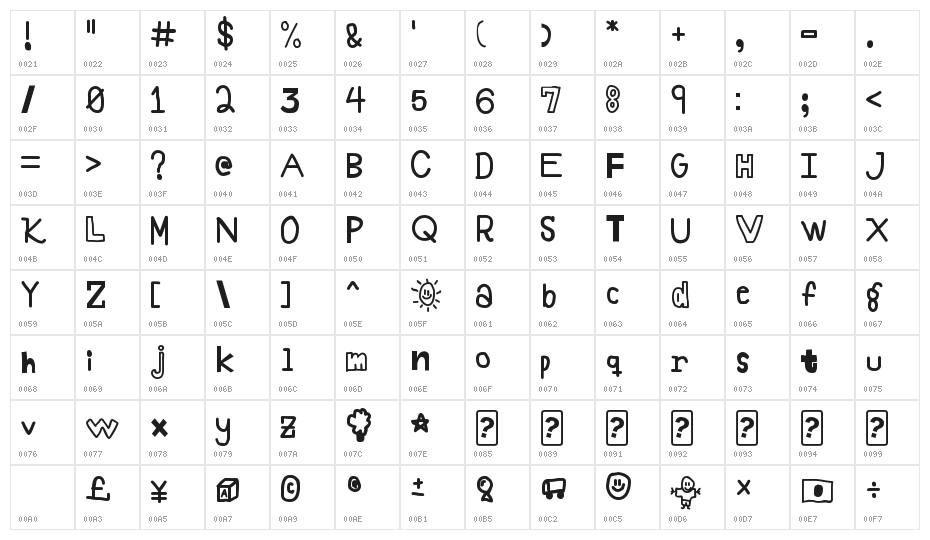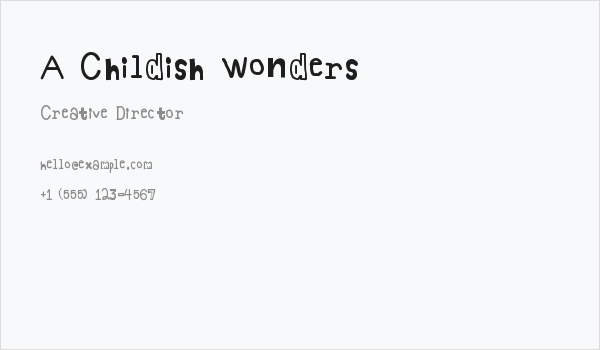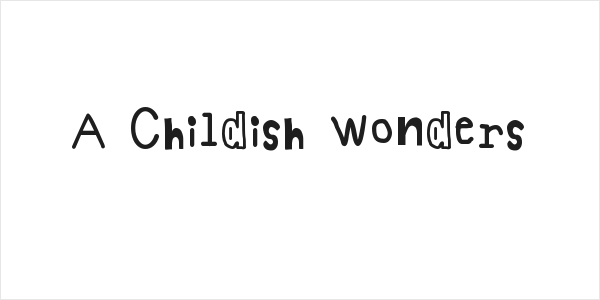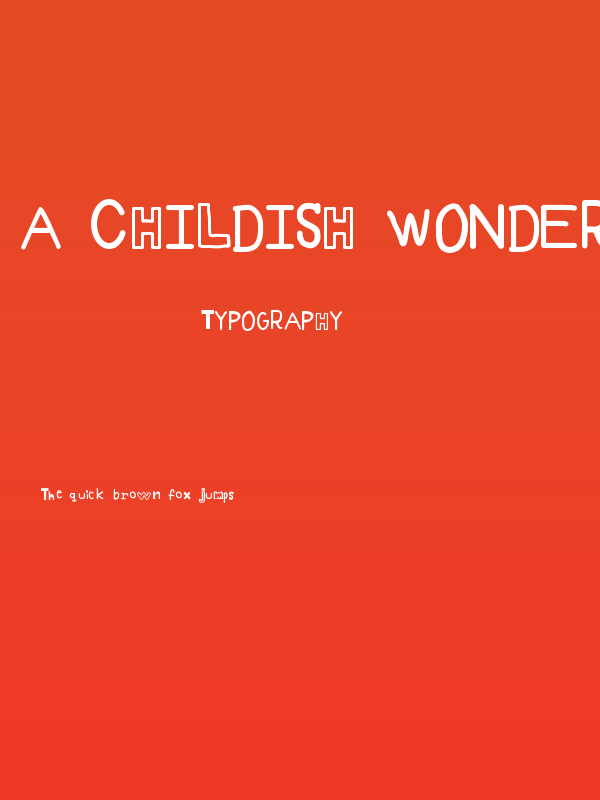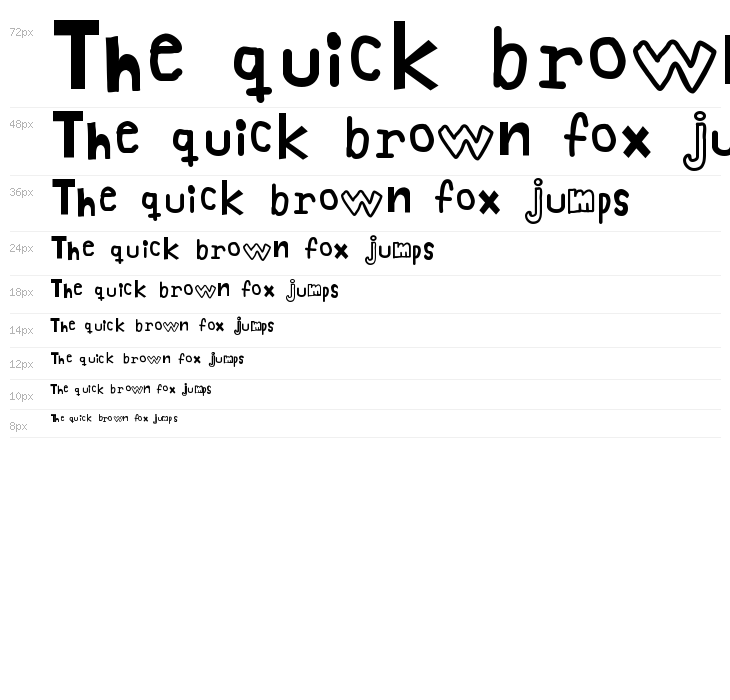
A Childish Wonders Font
A Childish Wonders Description
This playful and whimsical font features a mix of bold and thin strokes, creating a lively and energetic appearance. The characters are irregular and varied, with some letters appearing hand-drawn and others more structured. This diversity in style gives the font a unique, childlike charm. The uppercase letters are bold and prominent, while the lowercase letters maintain a quirky, informal look. Numbers and special characters follow the same playful design, making the font suitable for creative and fun projects.
| Proposed Projects | Children's books, educational materials, playful branding, party invitations, and creative posters. |